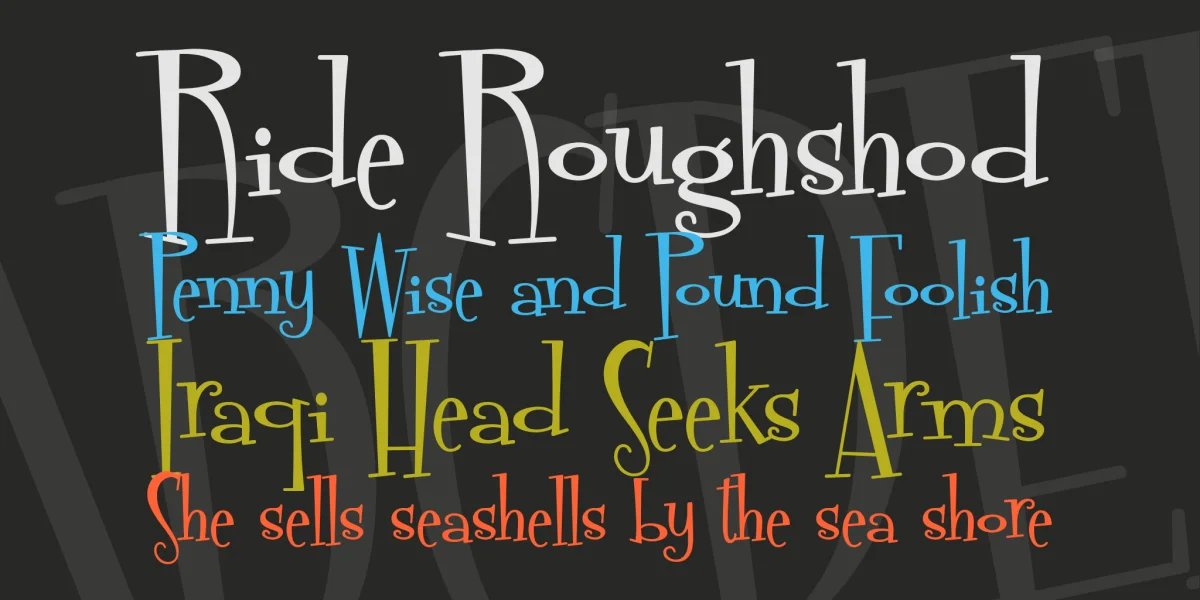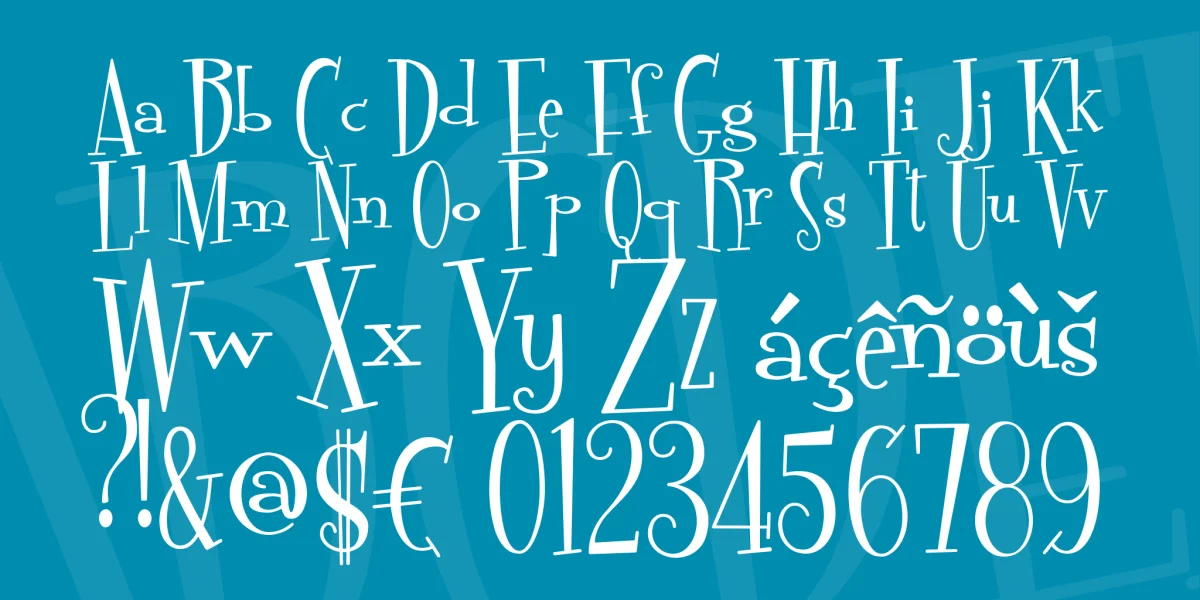
We liked the look of this one so much, we decided to name it after ourselves. This fun quirky retro font looks great almost anywhere, which is where you may use it! A commercial license is available at MyFonts.